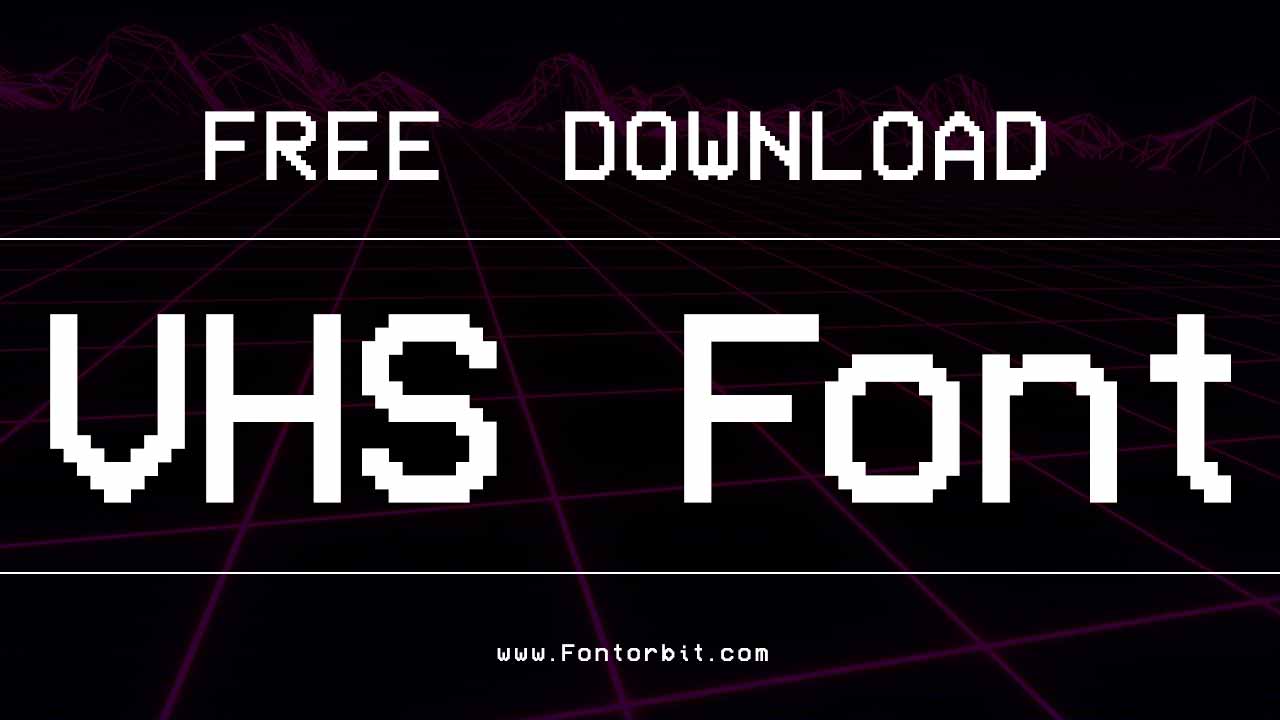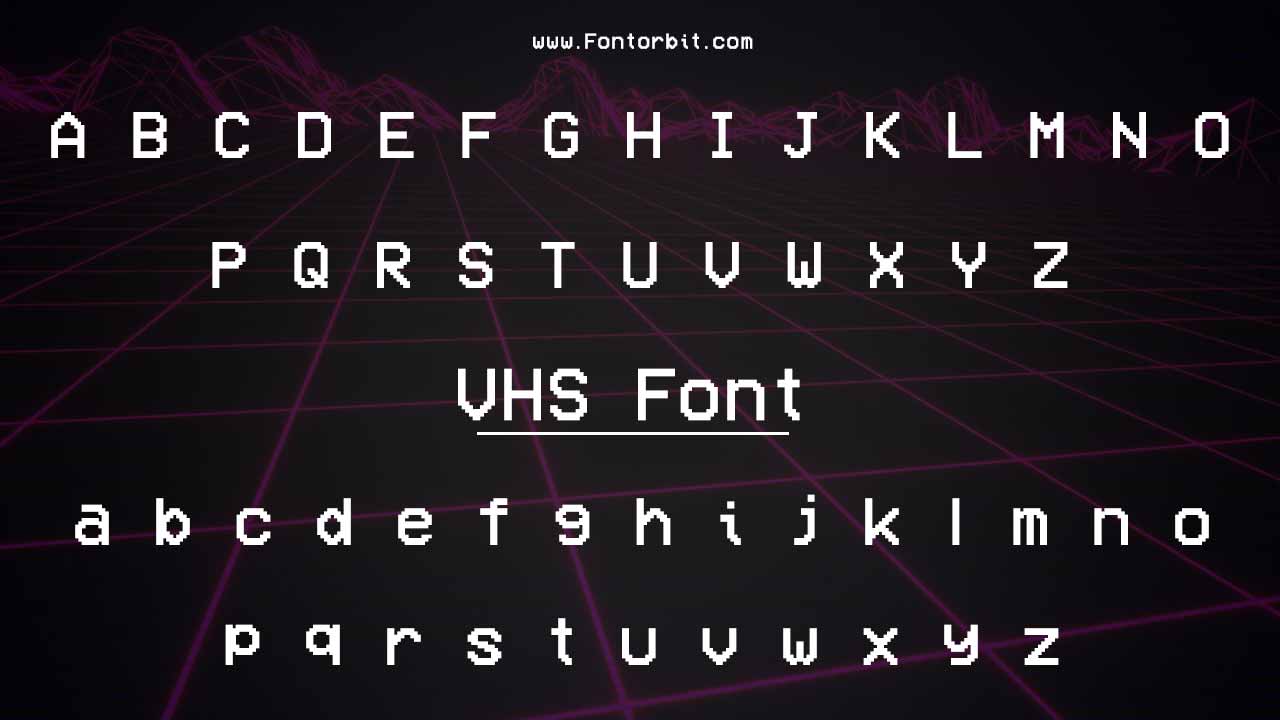
The VHS font family takes inspiration from the nostalgic 1980s and 1990s, recreating the charm of old VHS tapes and VCR displays. Designed by Riciery Leal, fonts like VCR OSD Mono bring back the vintage aesthetic seen in classic video recordings and retro posters.
VHS Font Family: Styles And Features
| Font Name | Style | Best For |
| VCR OSD Mono | Monospace, Pixelated | Digital displays, branding |
| VCR EAS | Bold, Retro | Posters, banners |
| Rubik Mono One | Blocky, Modern | Tech projects, print materials |
| Orbitron | Futuristic, Sharp | Sci-fi themes, web design |
| Share Tech Mono | Console, Classic | Coding visuals, marketing |
Key Features Of VHS Fonts
- Monospaced Design: Mimics the classic VHS tape display.
- Pixelated & Glitch Effects: Gives an authentic retro touch.
- Customizable Output: Adjustable size, colors, and spacing.
- Suitable for Print & Digital: Works well in posters, websites, and branding.
Where To Use VHS Fonts
VHS fonts are versatile and can enhance many design projects:
- Posters & Banners: Retro-themed event promotions.
- Magazines & Print Materials: Nostalgic editorial layouts.
- Websites & Digital Branding: Cyberpunk and vintage aesthetics.
- Pixel Art & Animation: Classic VHS effects.
- Social Media Graphics: Engaging and stylish retro content.
- VCR OSD Mono: The most authentic real VHS font.
- VCR EAS: A variation with a sharper display.
- Rubik Mono One: A modern take on retro typography.
- Orbitron: A futuristic display font with sharp edges.
1.What Is The Best Real VHS Font? The most authentic real VHS font is VCR OSD Mono, designed by Riciery Leal. This TrueType font family closely resembles the text seen on VHS tapes and VCR displays, making it a popular choice for retro design projects.
3.What Are VHS Fonts Best Used For? VHS fonts are perfect for posters, banners, printed materials, magazines, branding, and digital design projects that require a retro aesthetic. Their distinctive pixelated characters and bold text styles help enhance visual elements in any project.
6.What Fonts Are Similar To VCR OSD Mono? If you’re looking for similar fonts, consider VCR EAS, Rubik Mono One, Orbitron, and Syncopate. These fonts share a retro, pixel-inspired look, making them excellent alternatives for VHS-style typography.